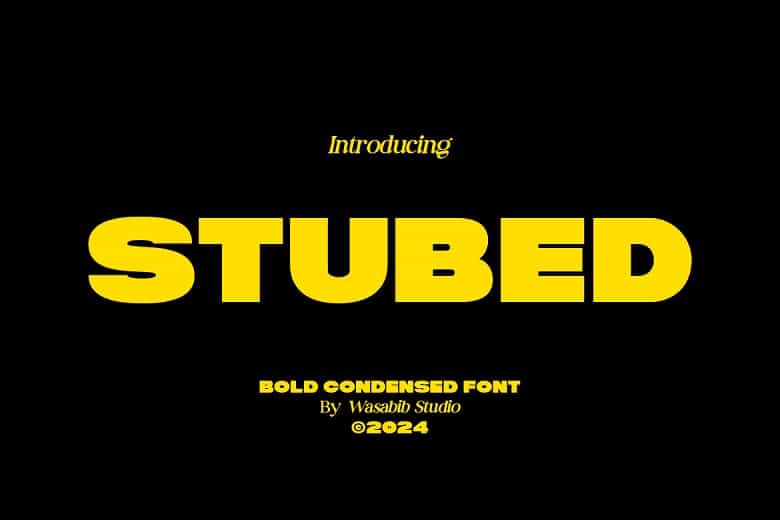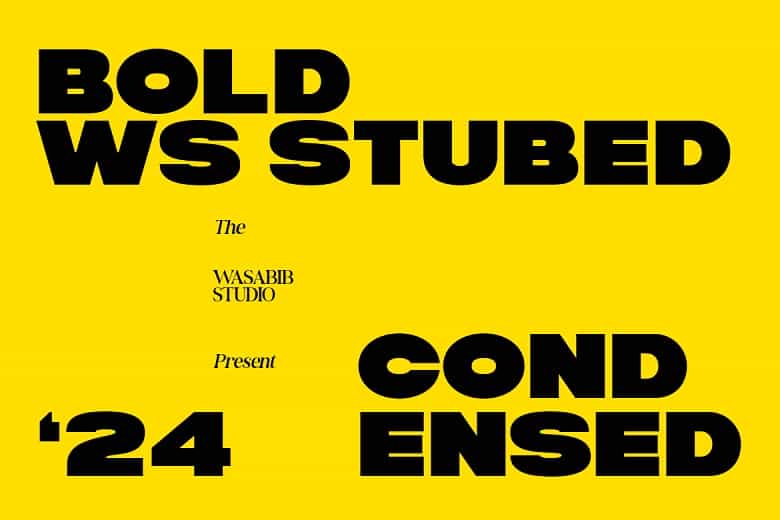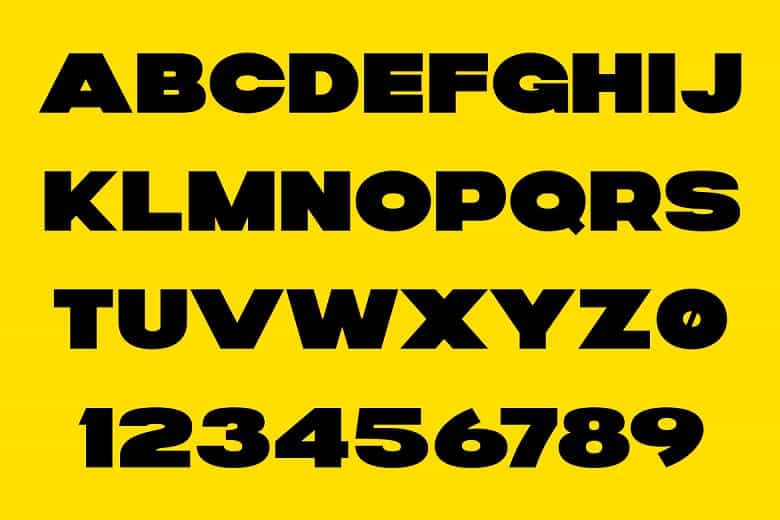
Stubed is a bold condensed sans serif font and it’s best for branding purposes. Because of its bold and effective design it is perfect for coming up with a strong and unique brand identity that reflects power, innovation, and reliability.